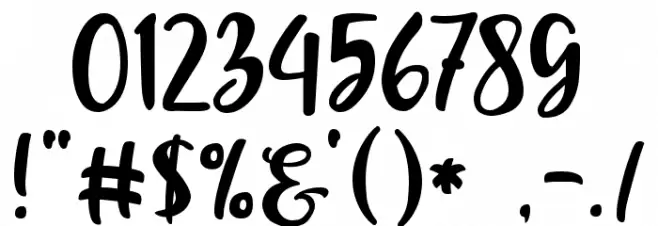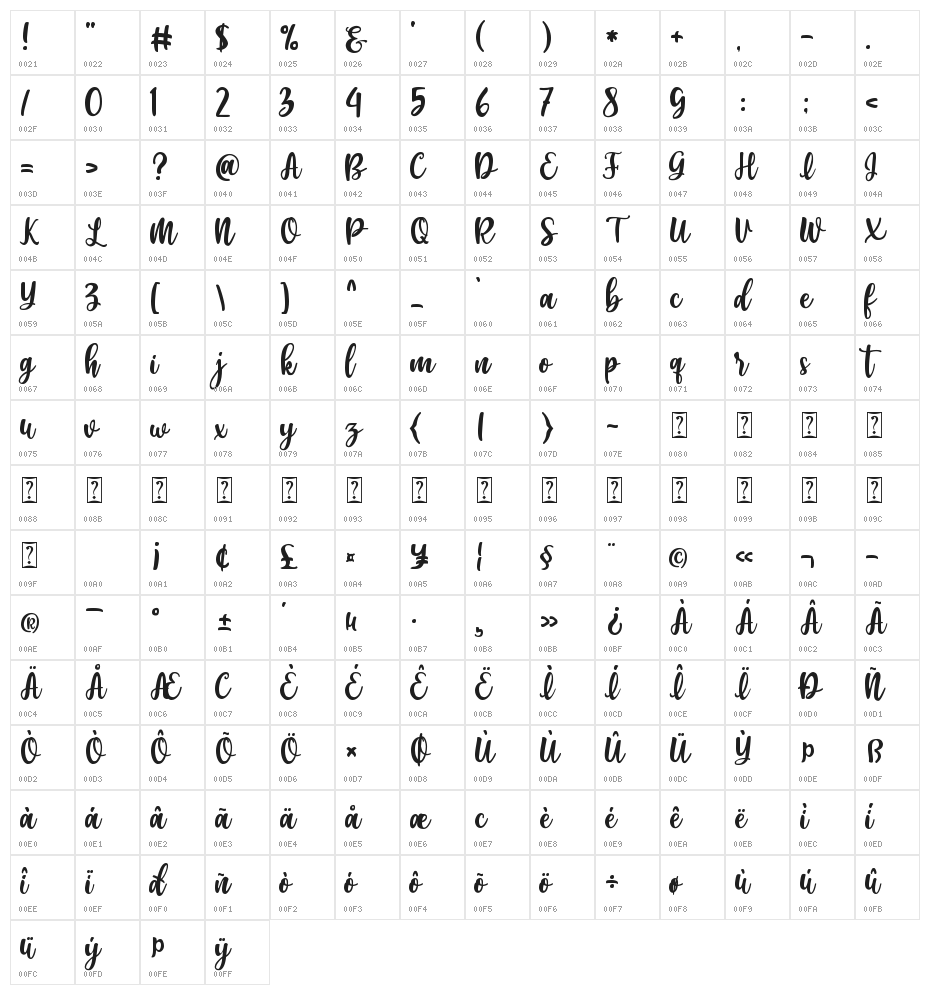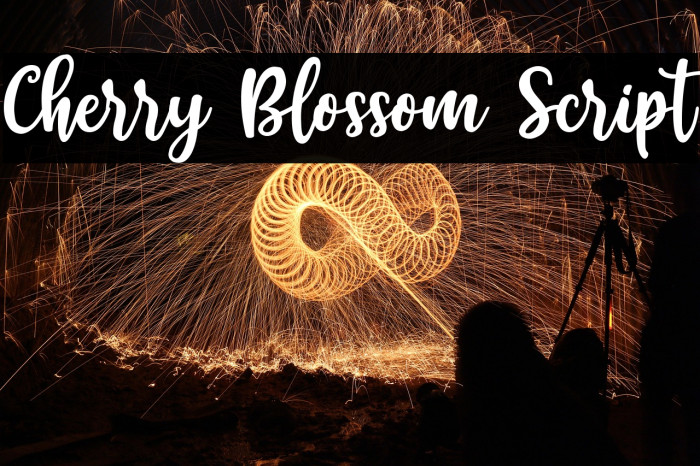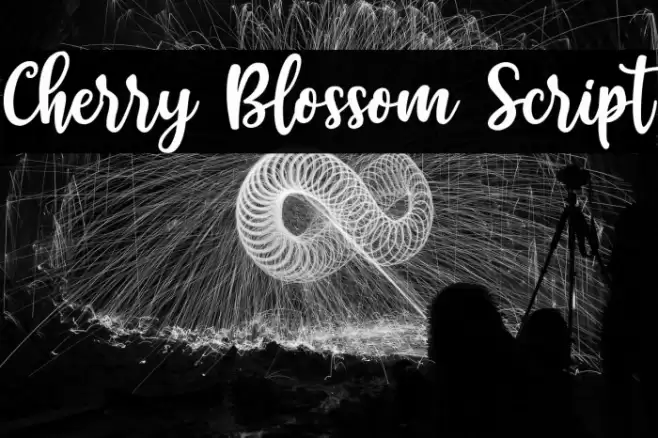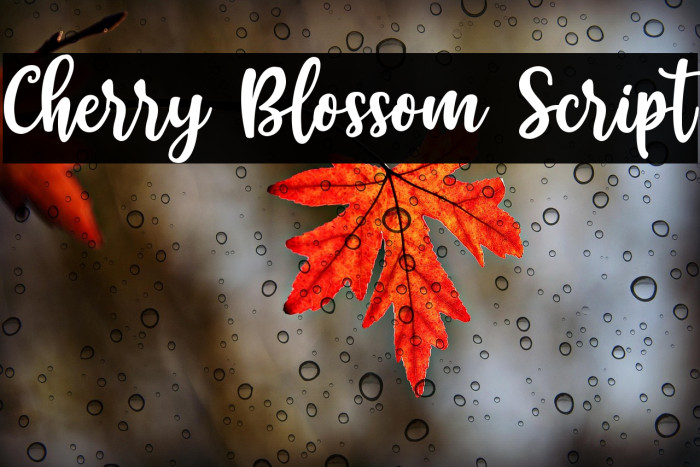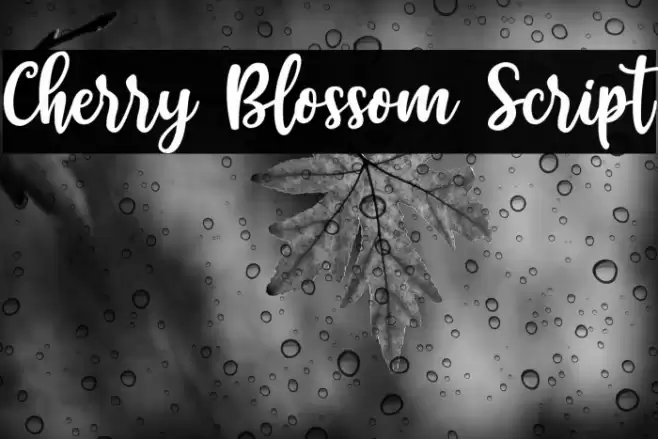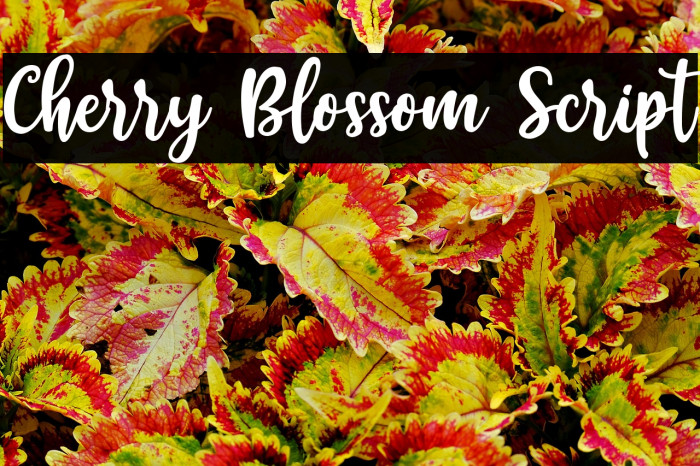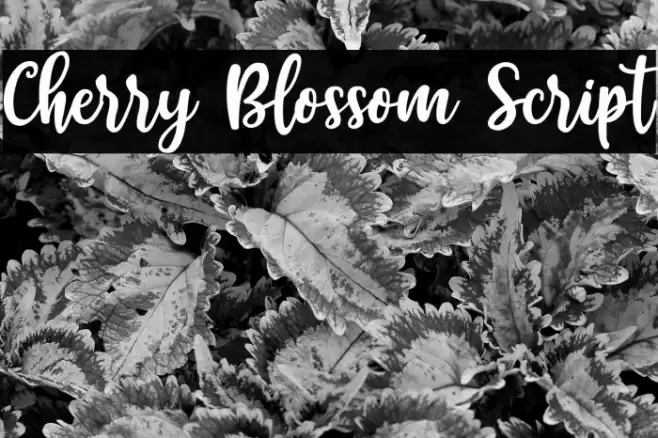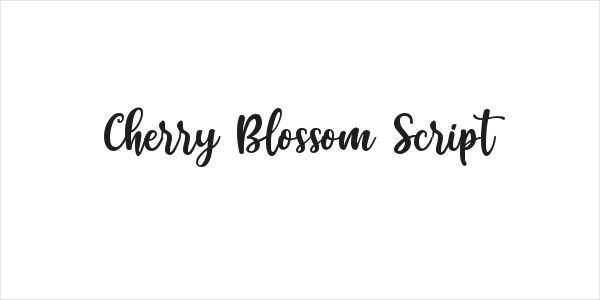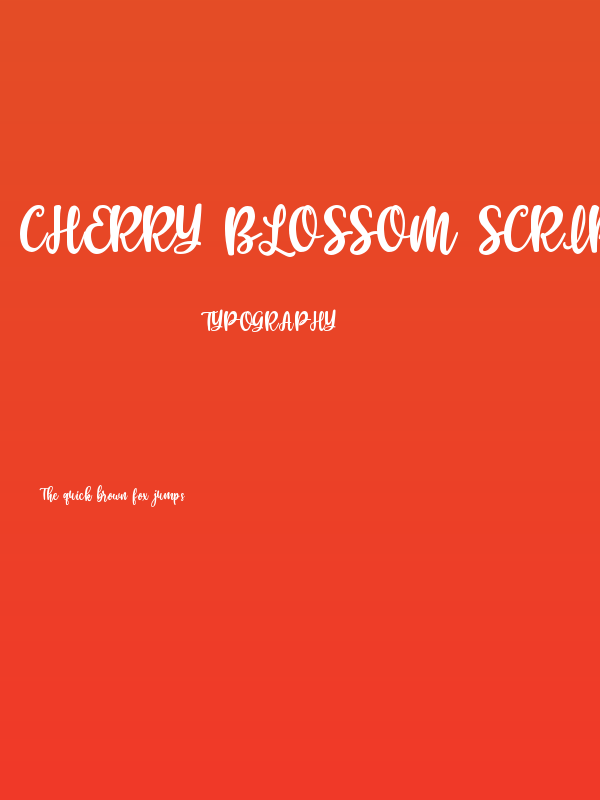
Cherry Blossom Script Font
Cherry Blossom Script Description
This font exudes a lively and elegant script style, characterized by its fluid and connected letterforms. The strokes are bold and confident, with a smooth flow that mimics natural handwriting. Each character is crafted with a sense of movement, creating a dynamic and engaging appearance. The uppercase letters stand tall with a slight slant, while the lowercase letters maintain a consistent rhythm and balance. The numerals and special characters are equally expressive, ensuring a cohesive look across all text. This font is perfect for adding a personal and artistic touch to any design.